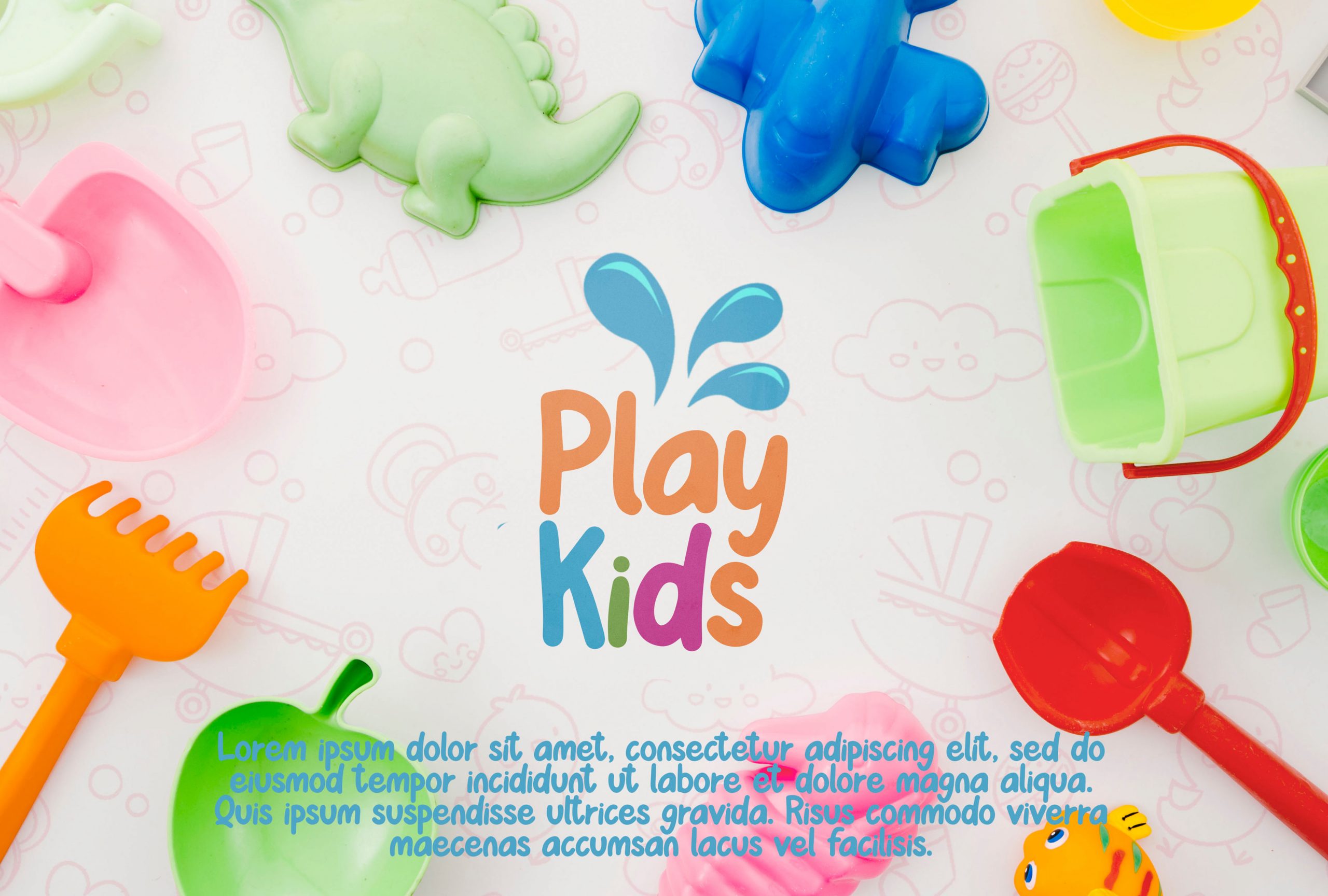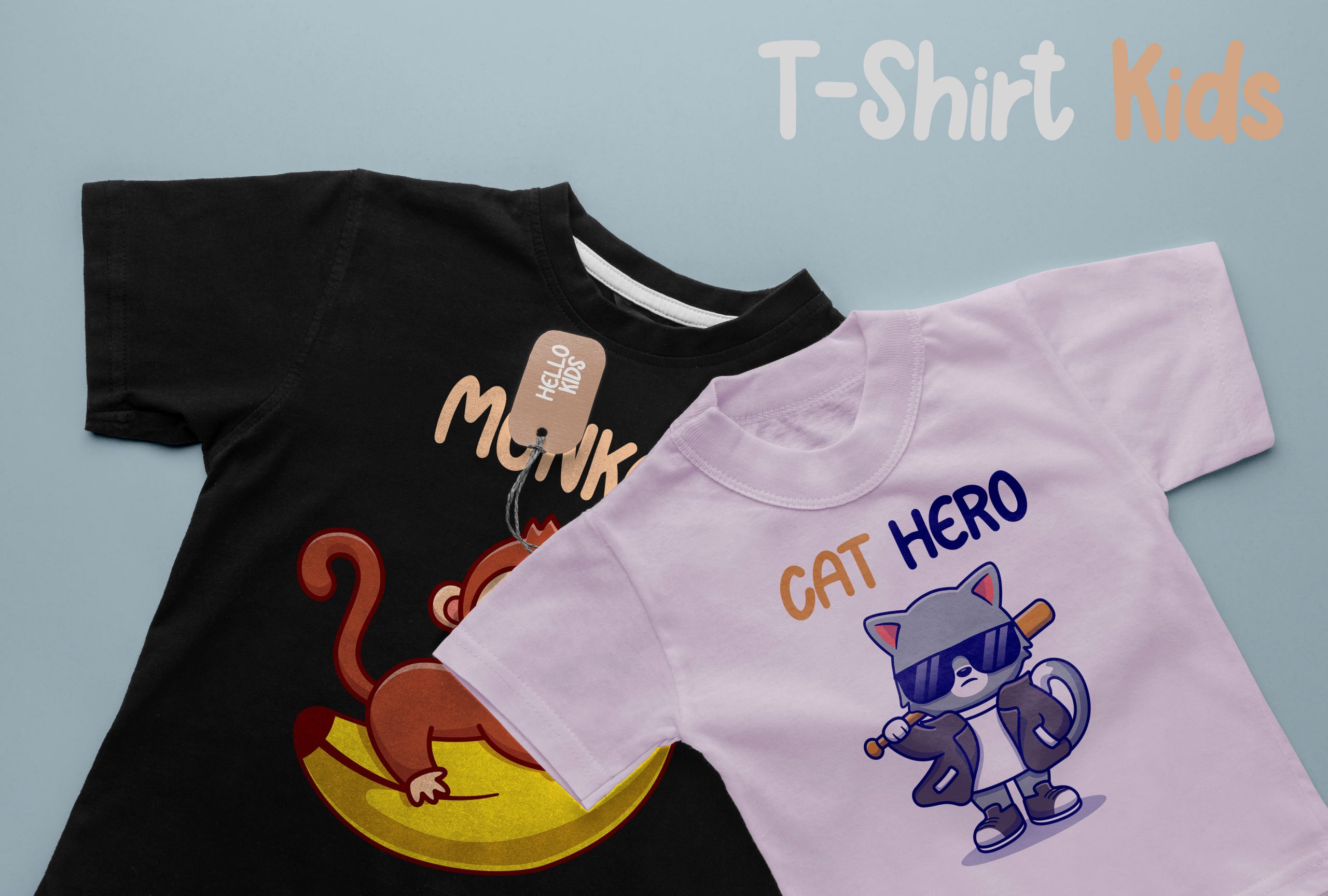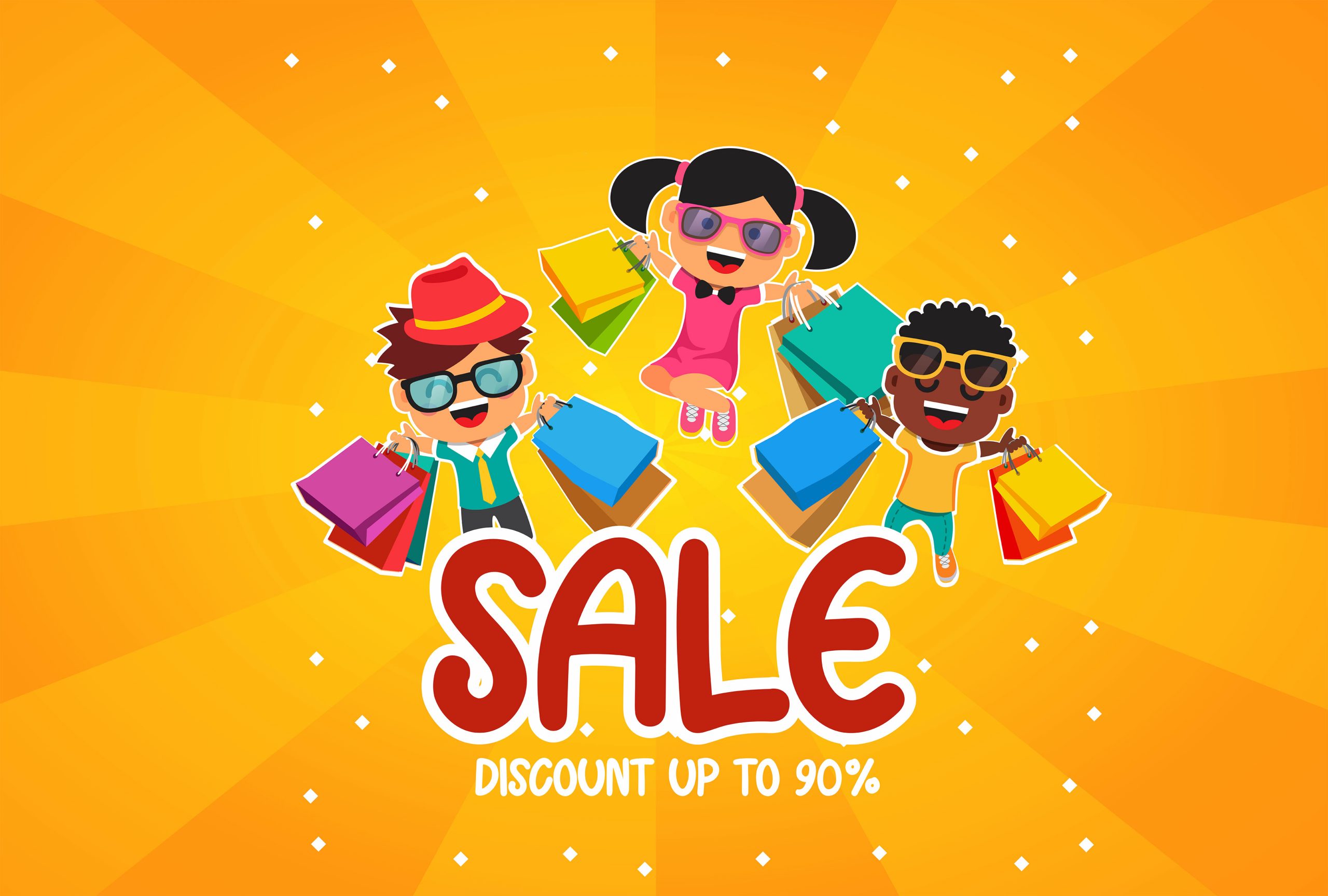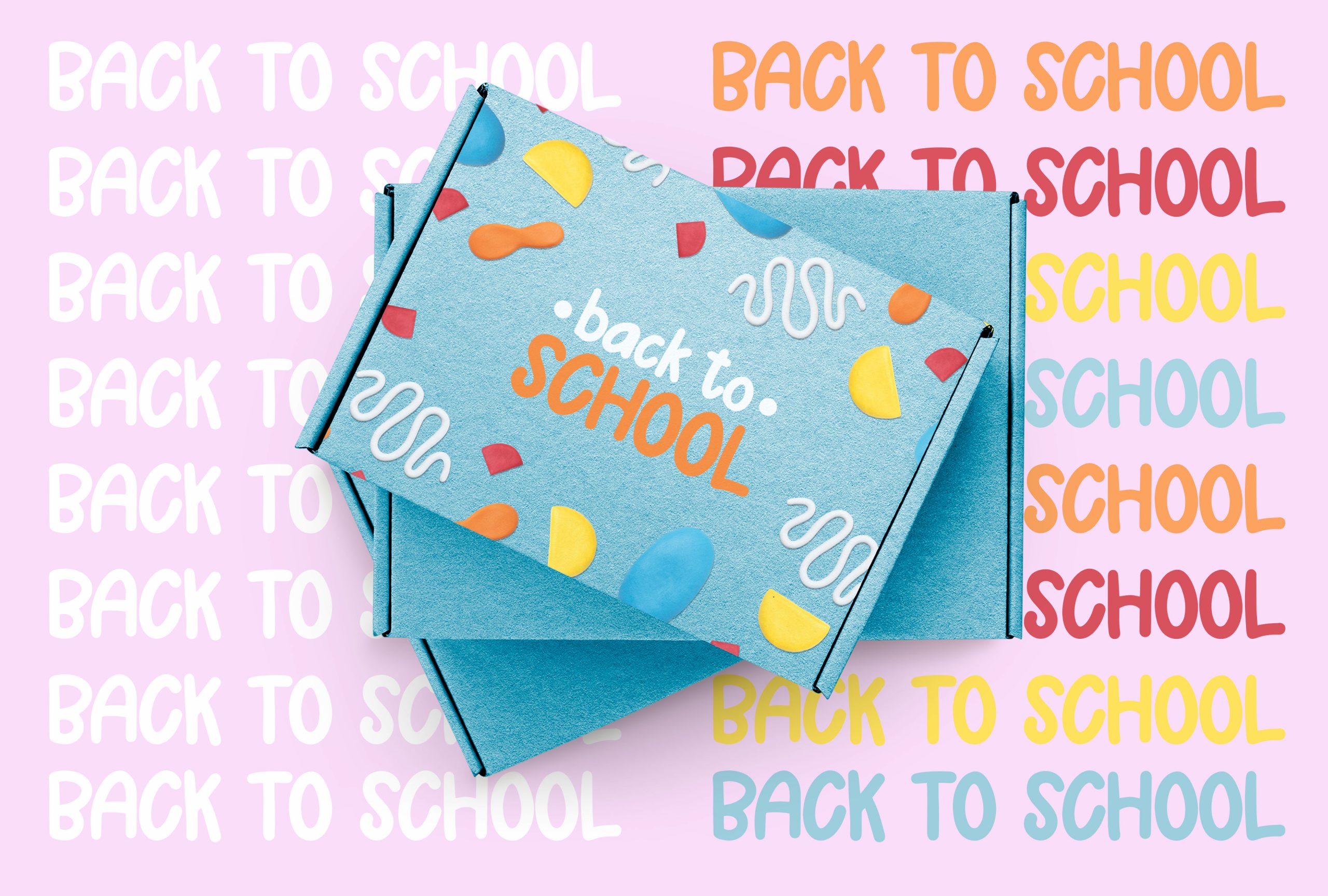
Choco Donut Font
Choco Donut Display Font
This a simple, friendly and cute handwritten font. Whether you’re using it for crafting, digital designing, presentations or greeting cards making, it’s perfect!